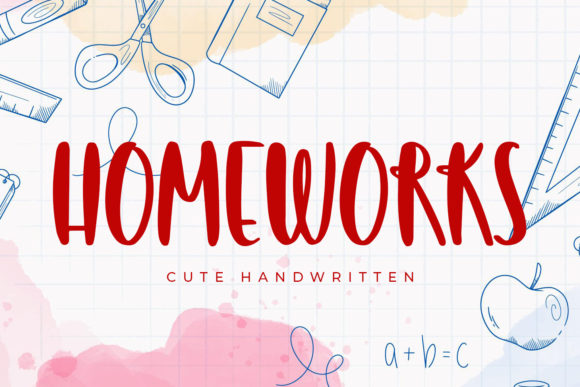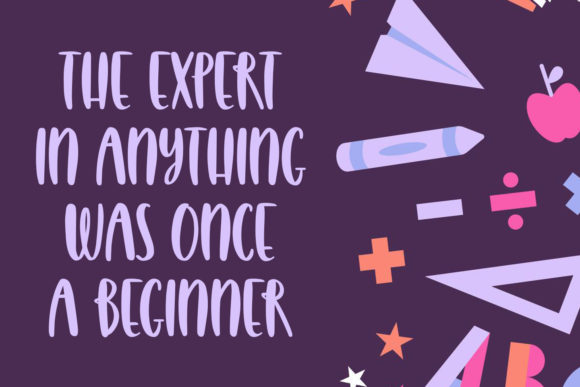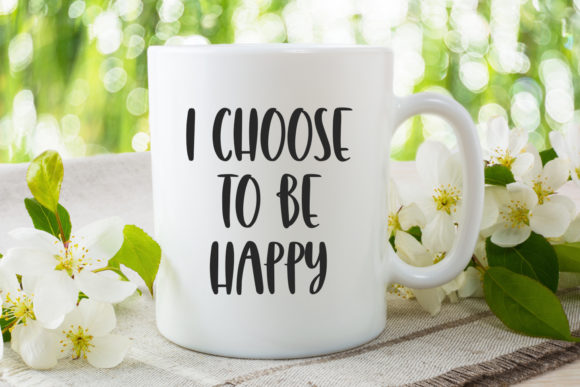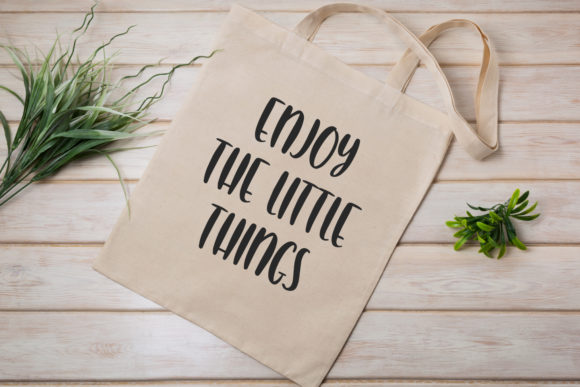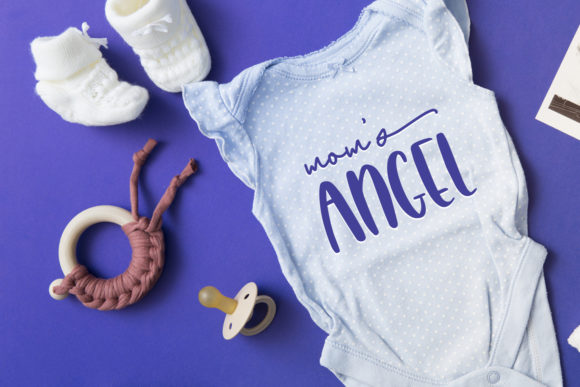
Homeworks Font
About Homeworks Font
Homeworks is a relaxed and playful handwritten font. Fall in love with its incredibly versatile style and use it to create gorgeous wedding invitations, beautiful stationary art, eye-catching social media posts, and much more!